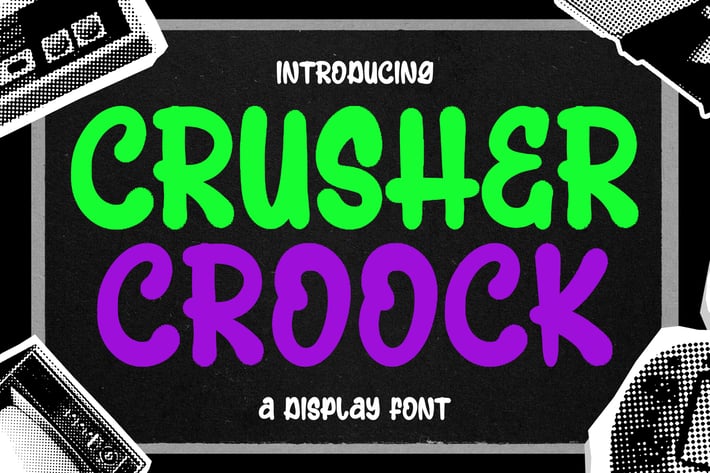
Crusher Croock Marker Graffiti Display Font
Crusher Croock Marker Graffiti Display Font highly detailed. Marker Display Font.
It would make a great choice for exquisite retro-urban designs, business branding, logos, Apparel designs, and more.